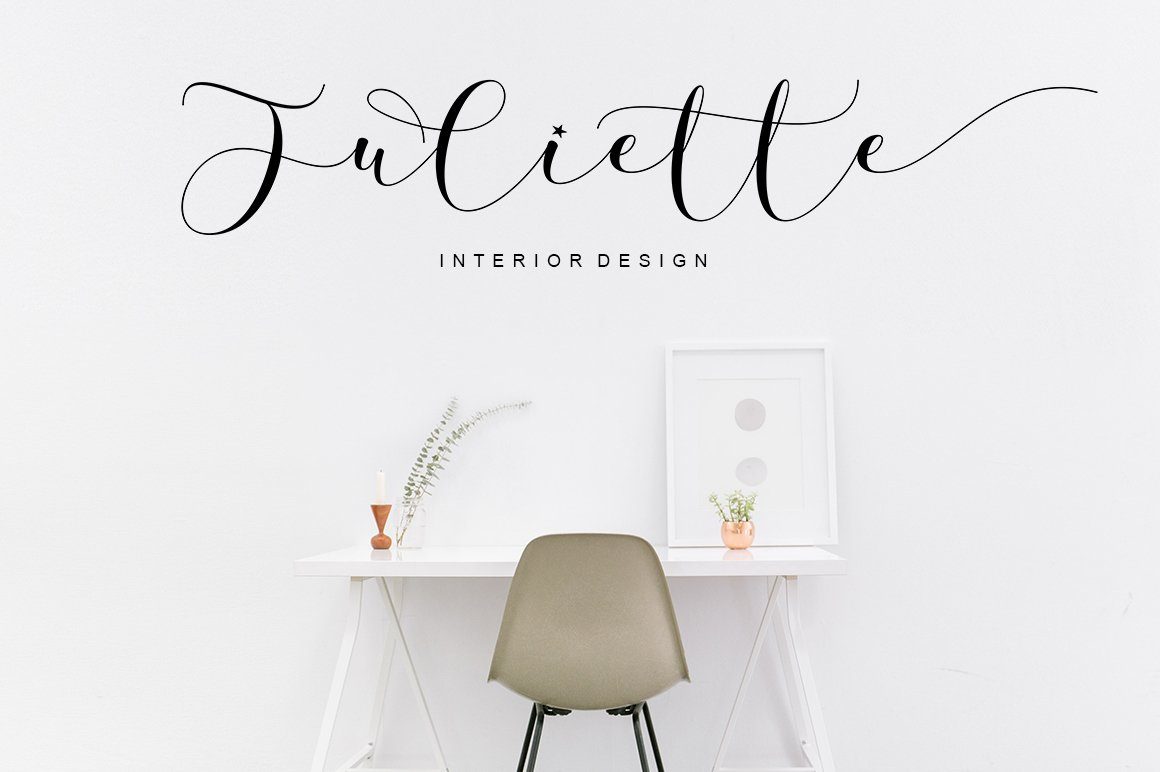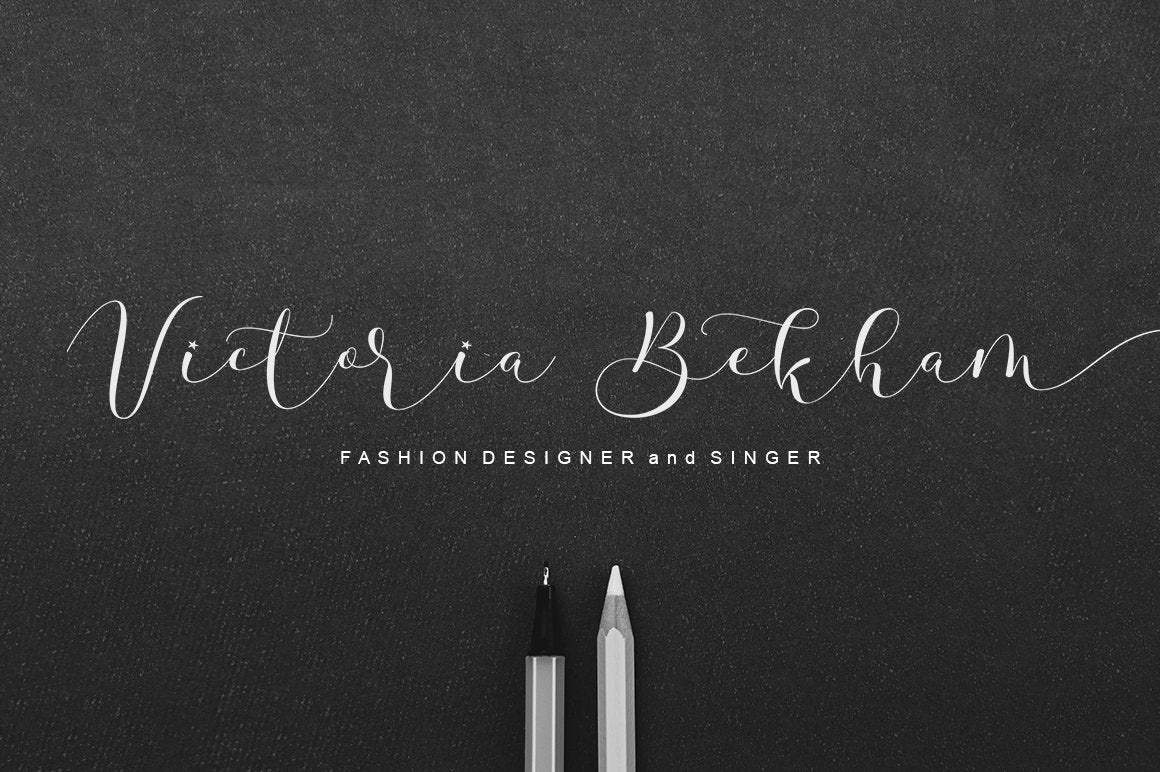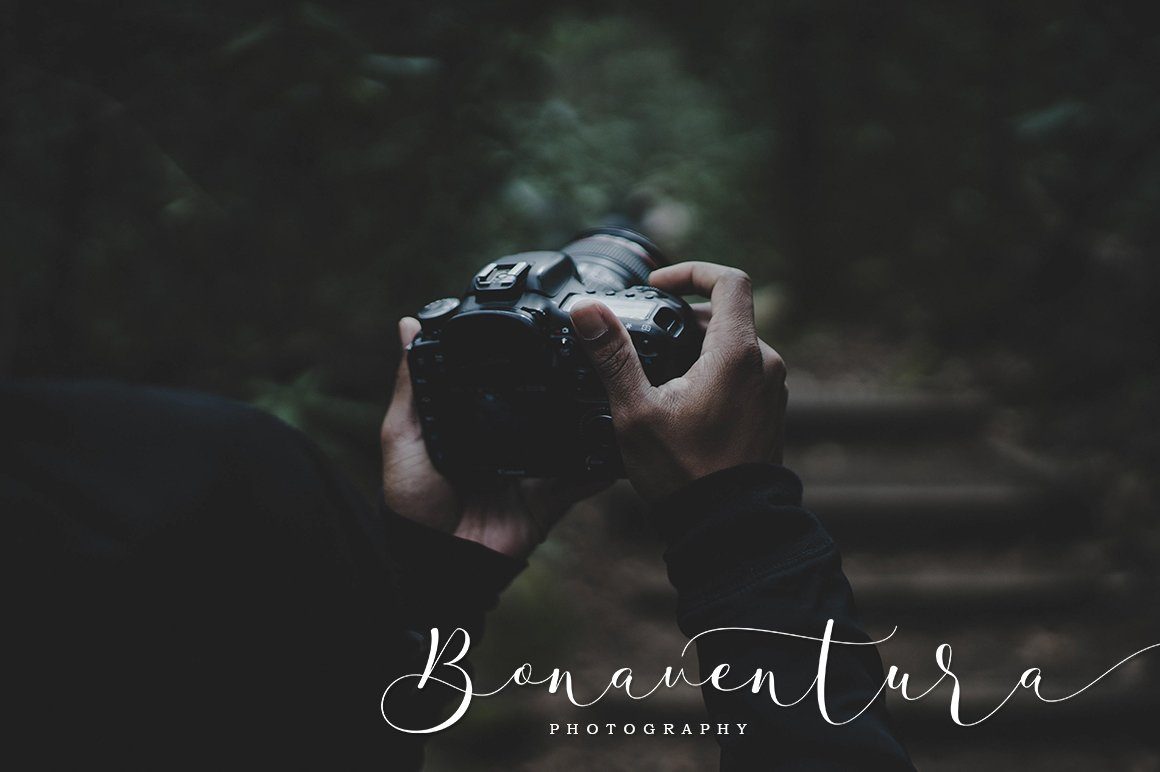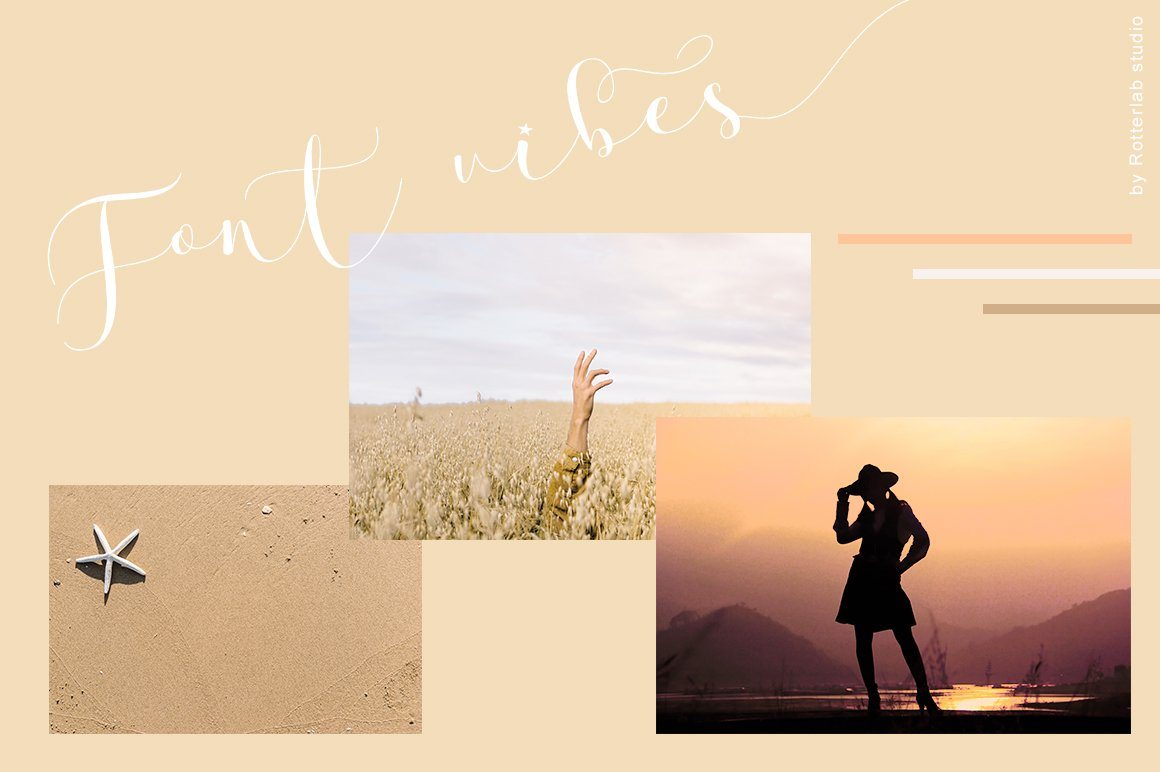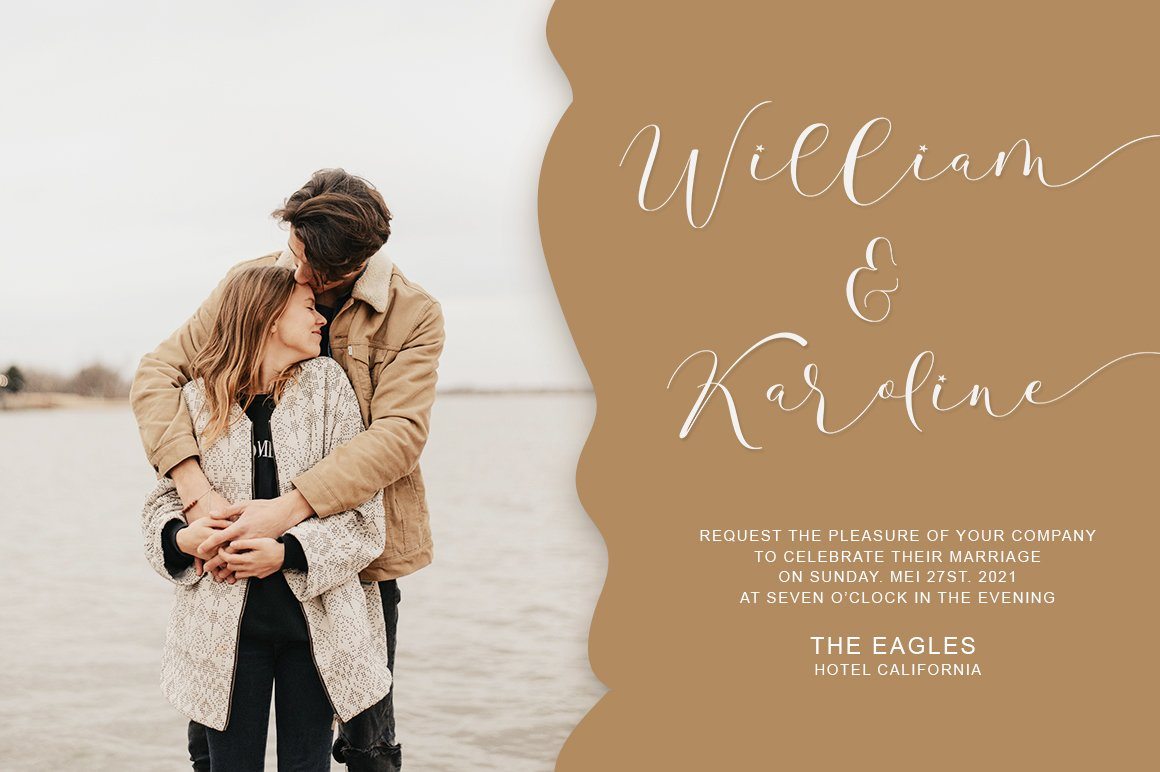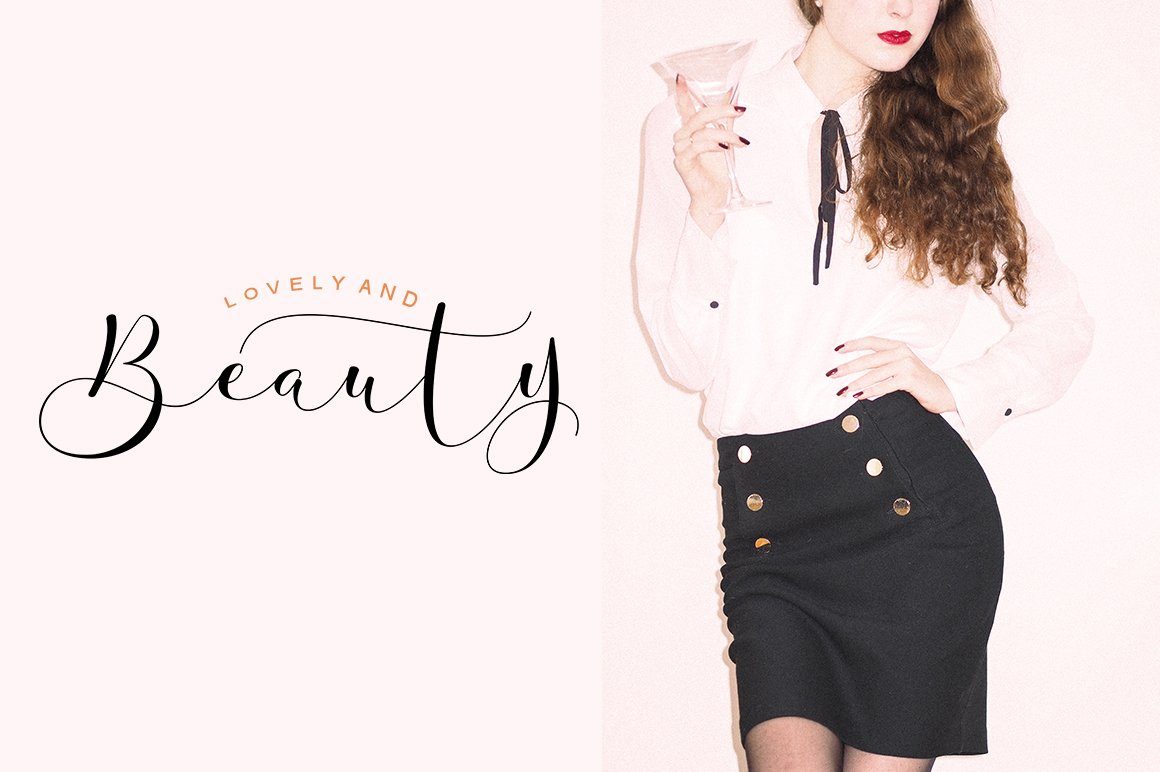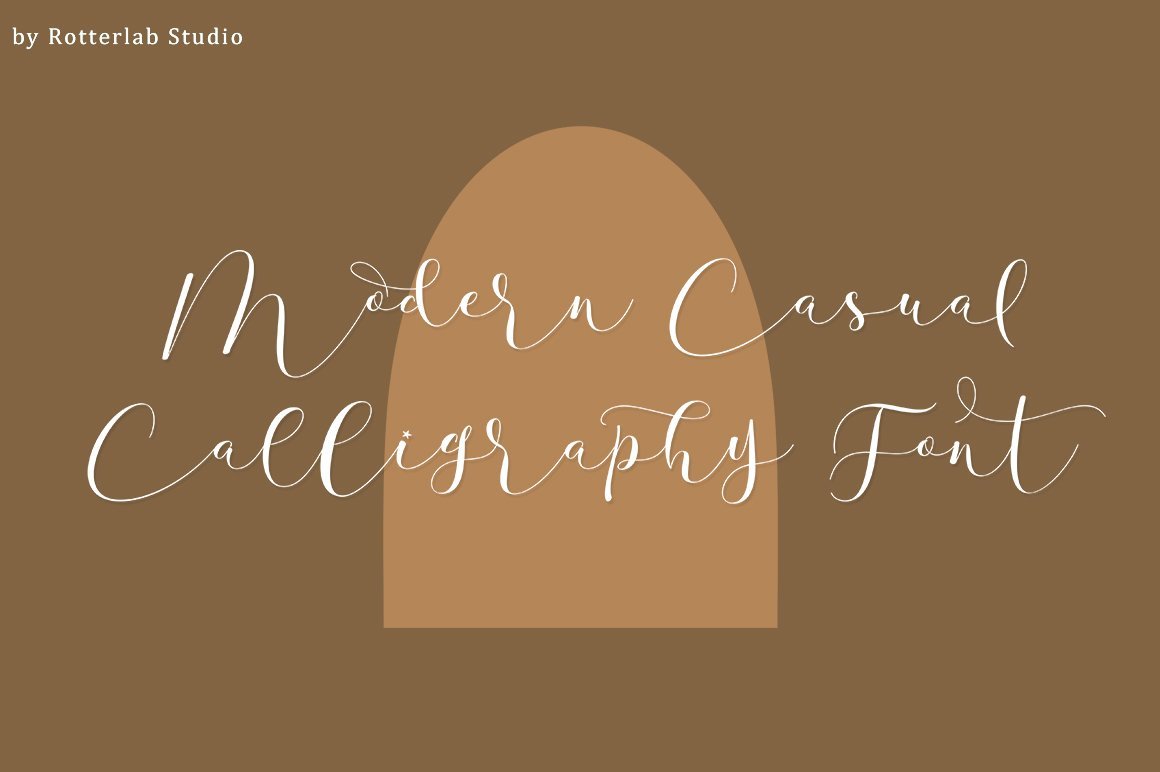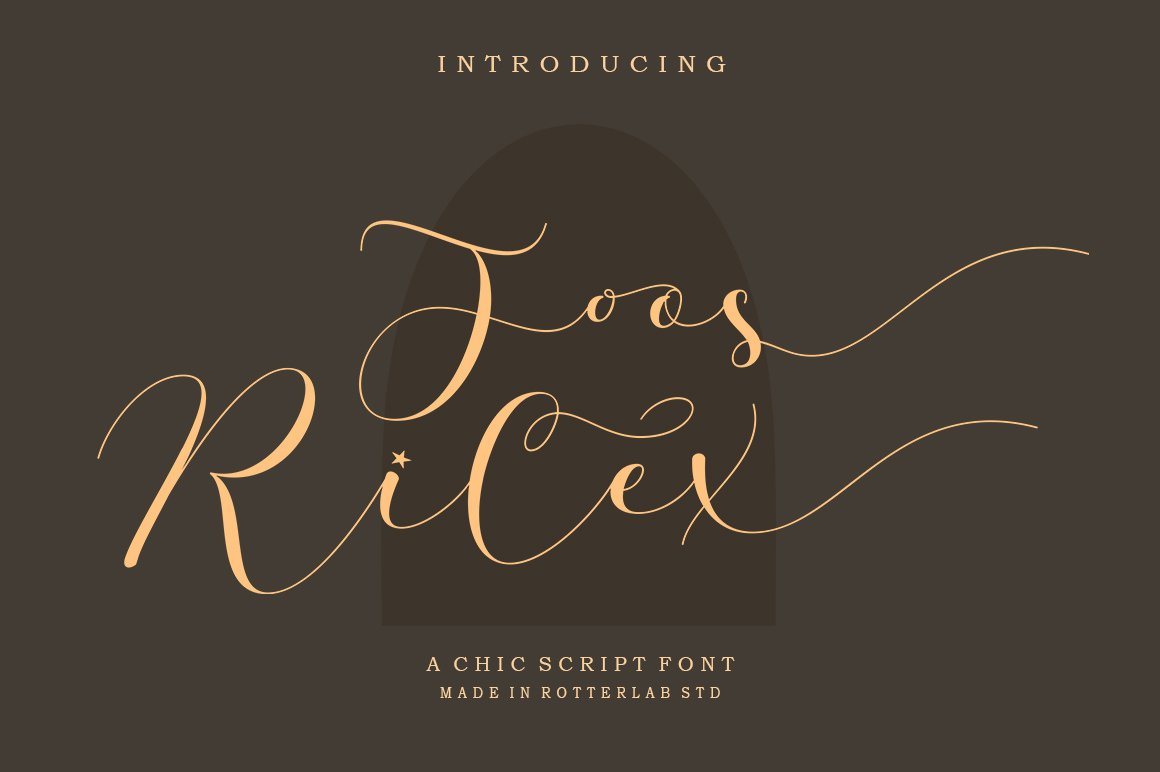
Joos Rilex
Introducing a new beautiful calligraphy font, Joos Rilex! Joos Rilex is perfect for elegant logos, high-end packaging, wedding stationery, websites and other projects that require a handwritten and luxurious touch. A wide variety of doodles and alternatives are included so you can give your logo or name a hand-drawn calligraphic look. Features: Joss Rilex (OTF) Joss Rilex (TTF) Thank you for visiting my shop, and feel free to contact if you have any questions!